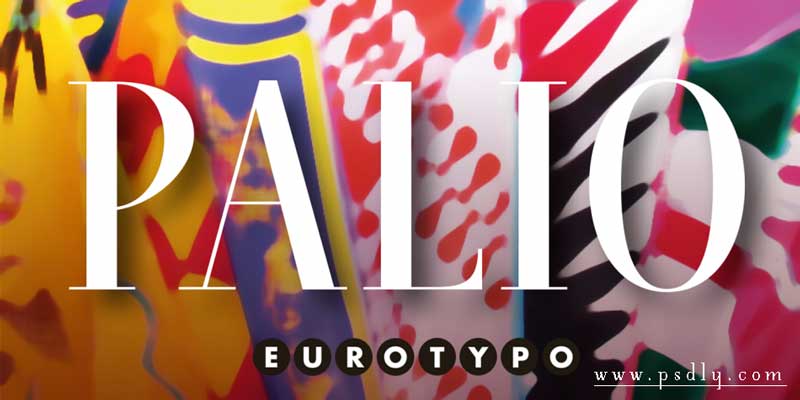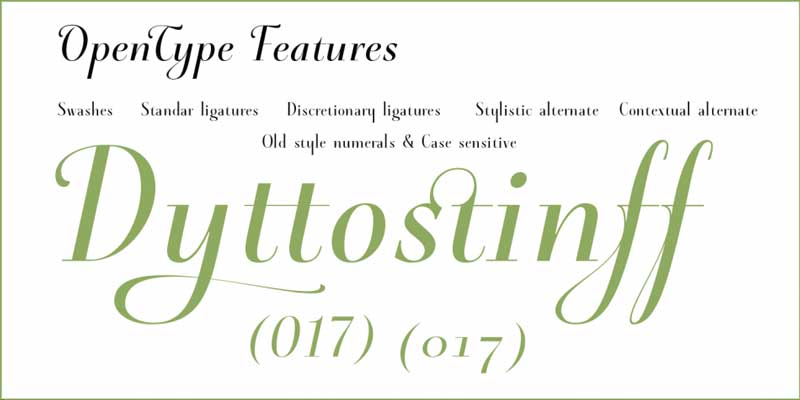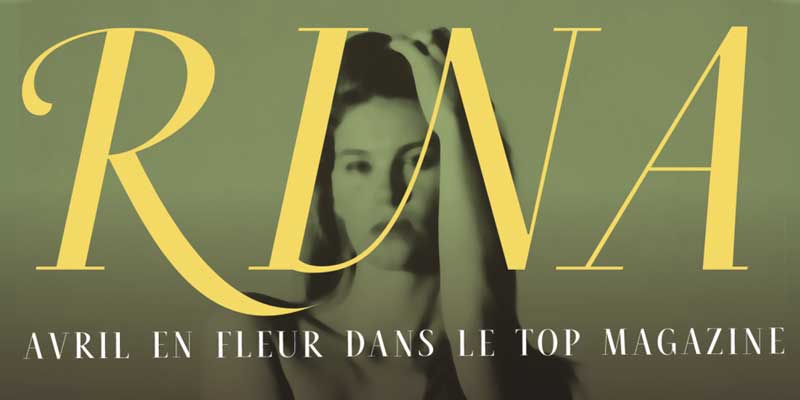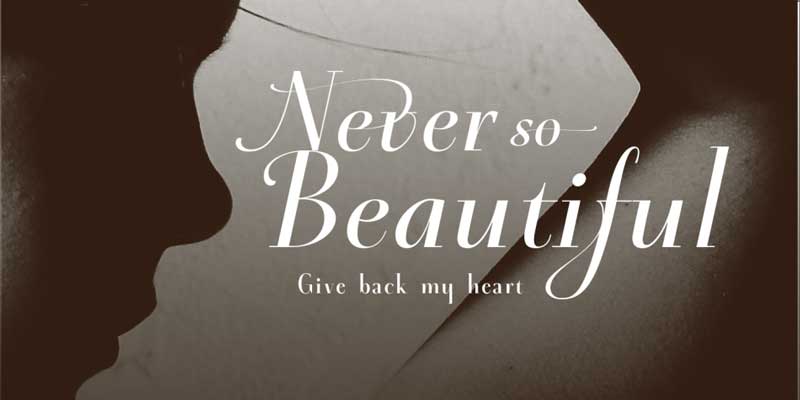
Introducing Fontspring Palio Font Family. Palio is a group of textual styles got from the exemplary Didona, its capitals are marginally consolidated and the lower case conclusively surrenders the suggestive of the extravagant endings strokes, which are still suffering in numerous typefaces.
About Of Palio Font
This font designed by Olcar Alcaide and Published by Eurotypo On MyFonts site. MyFonts debut: Dec 24, 2019.